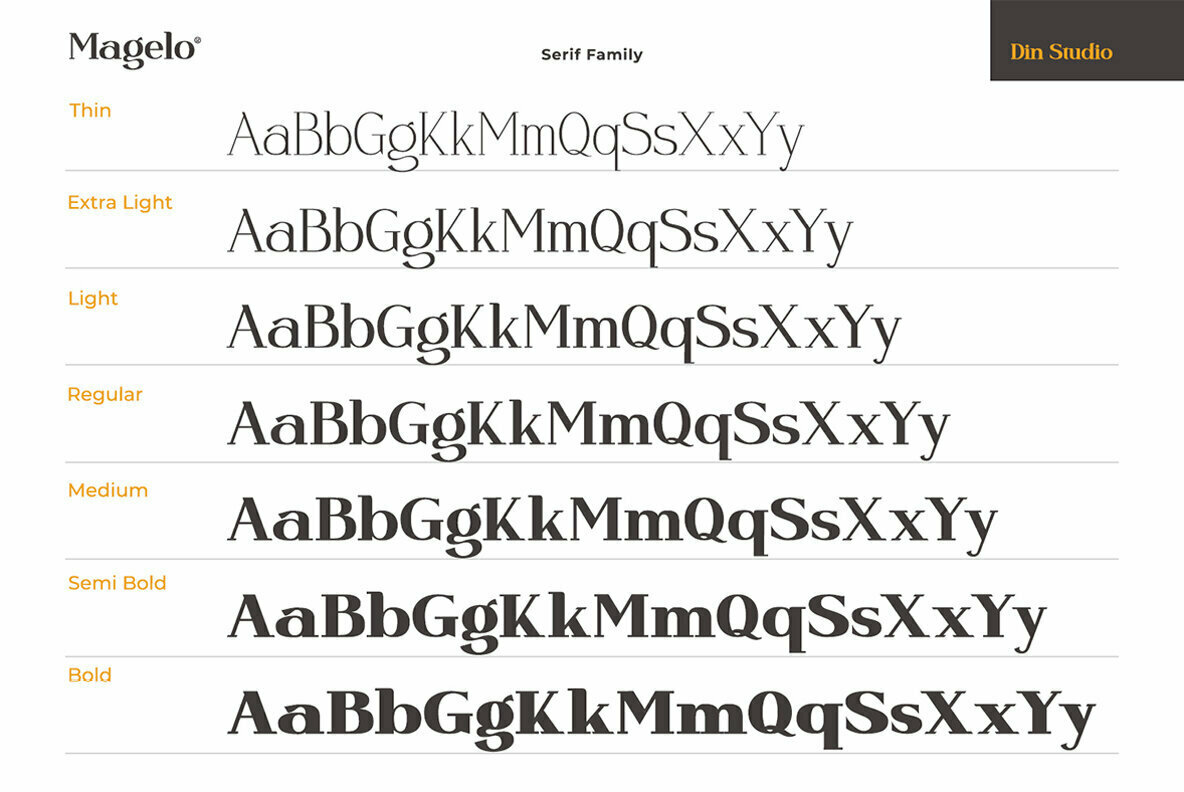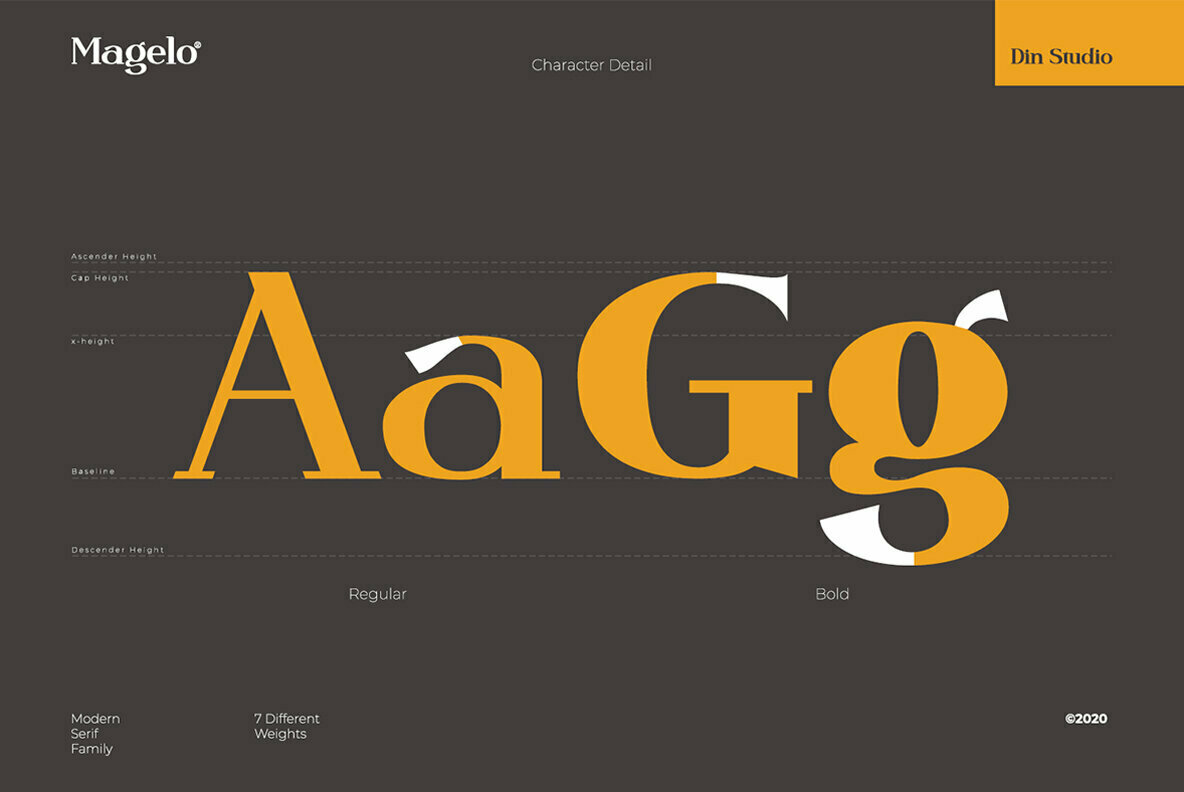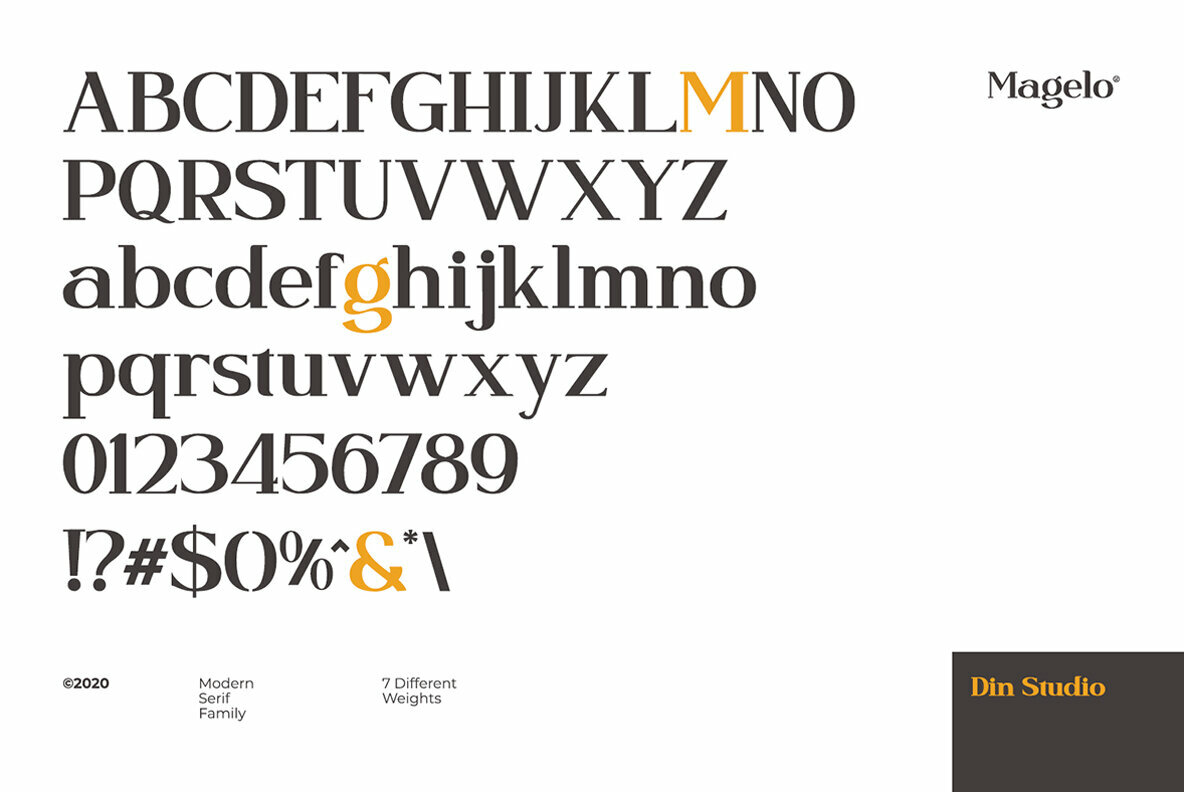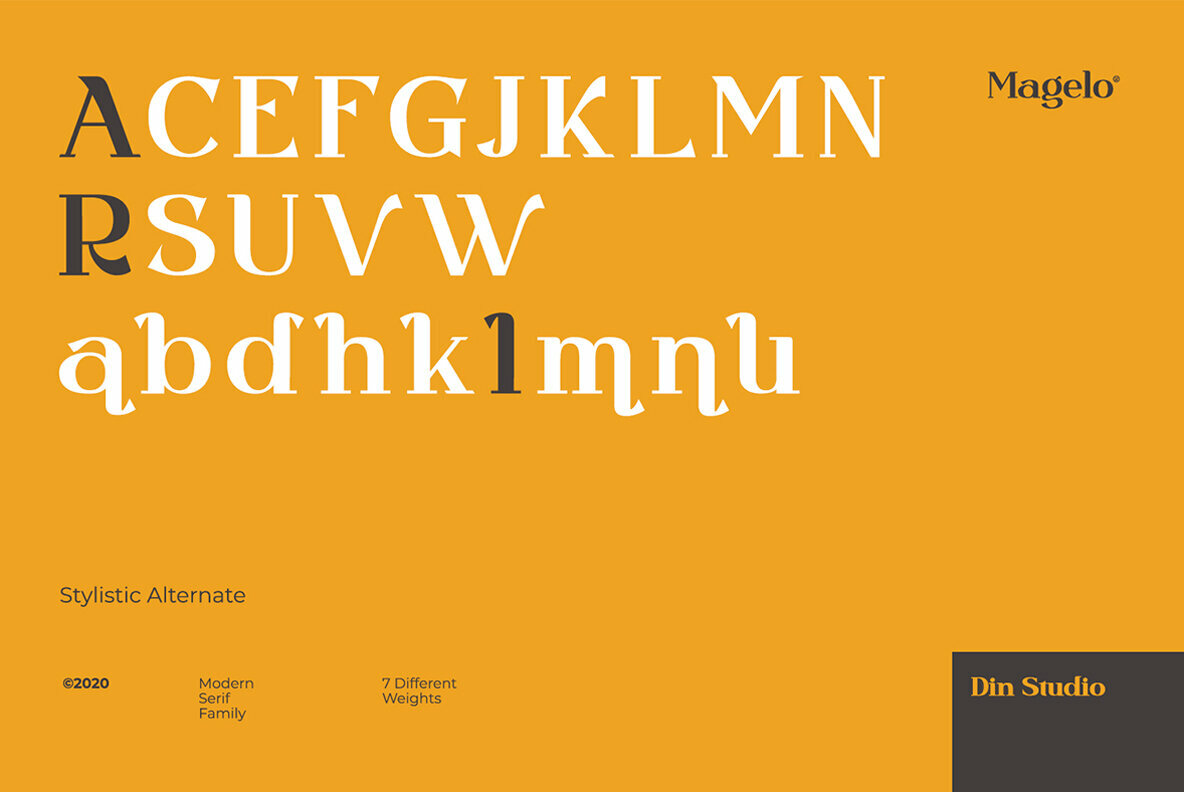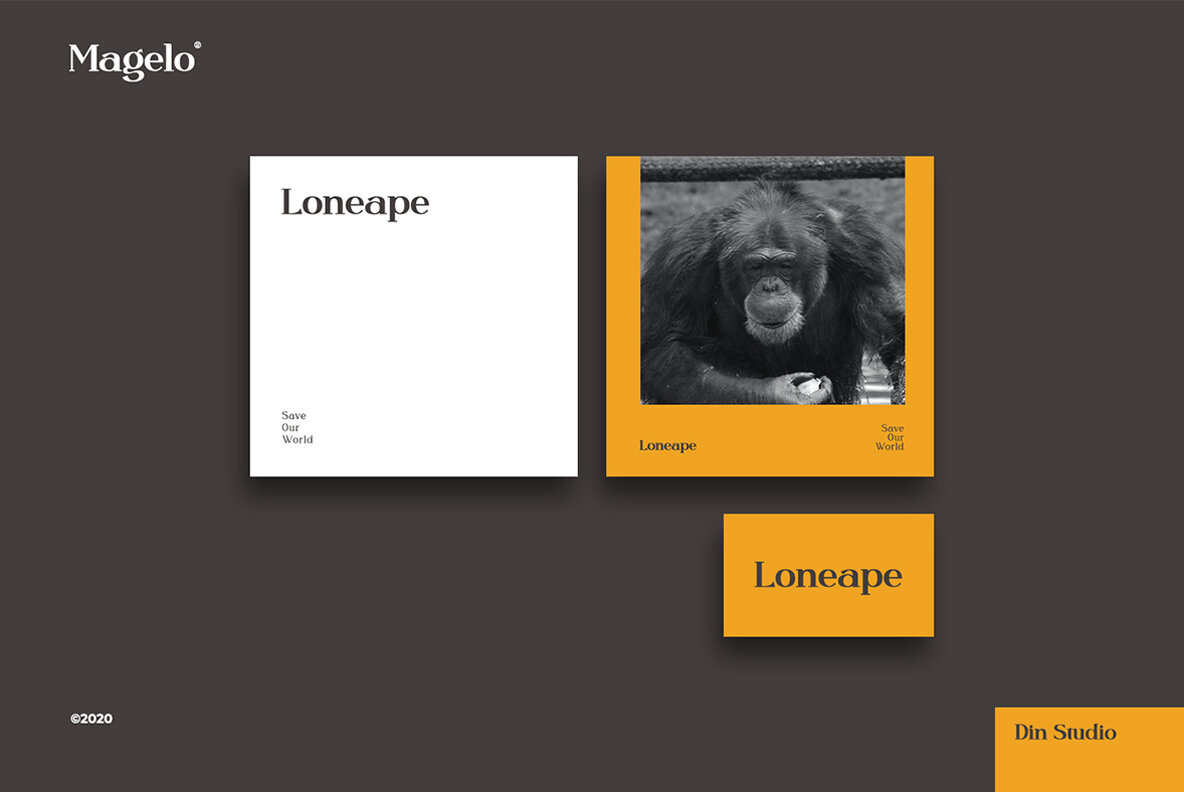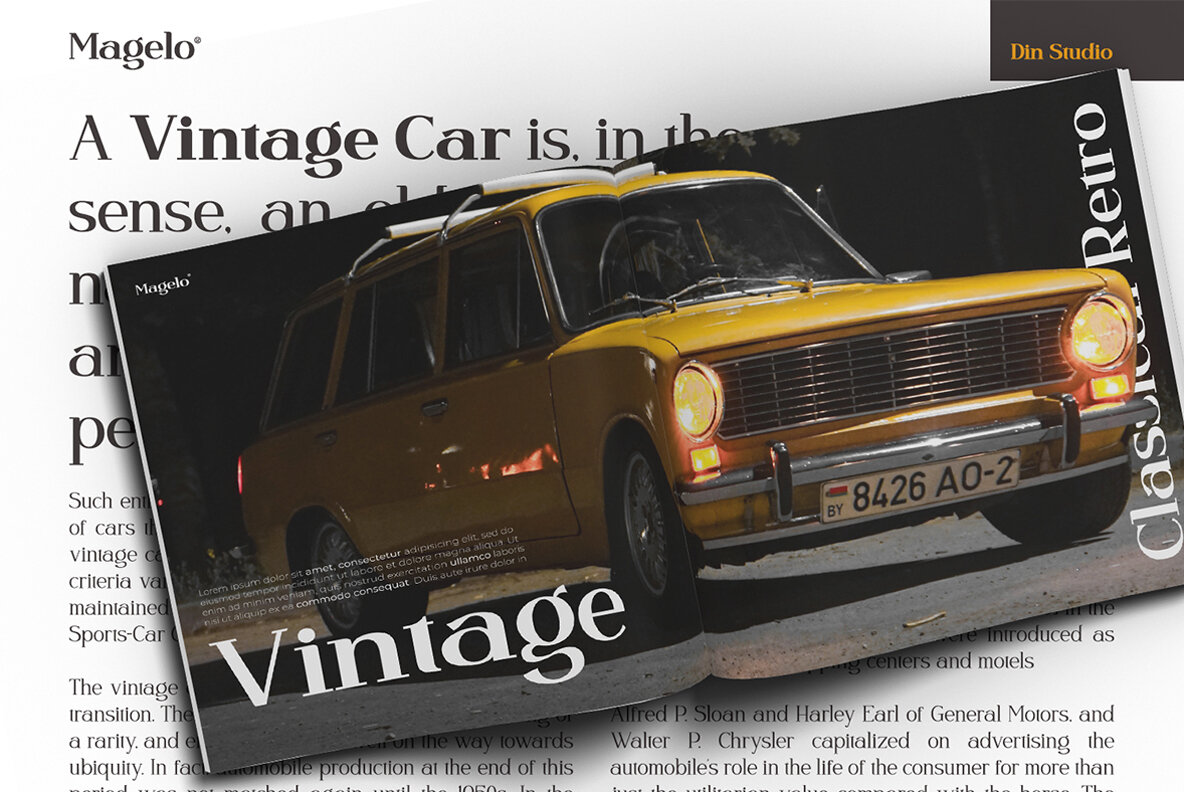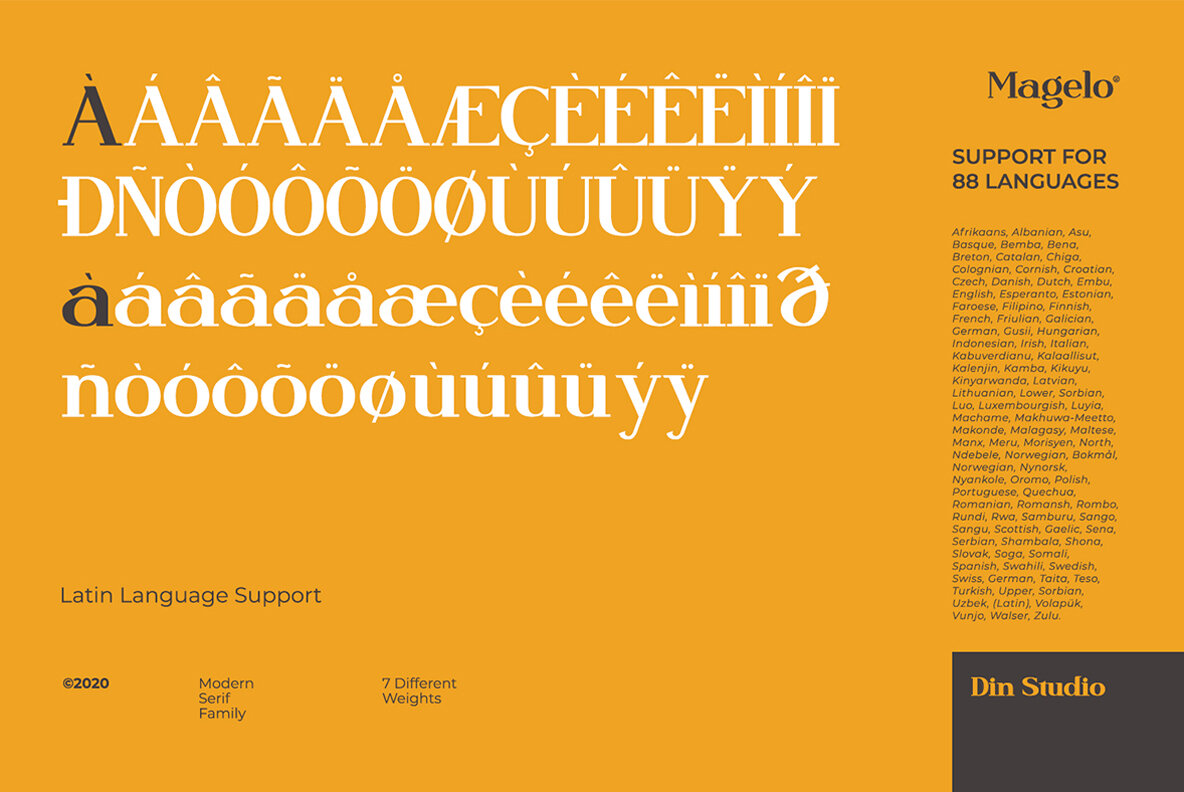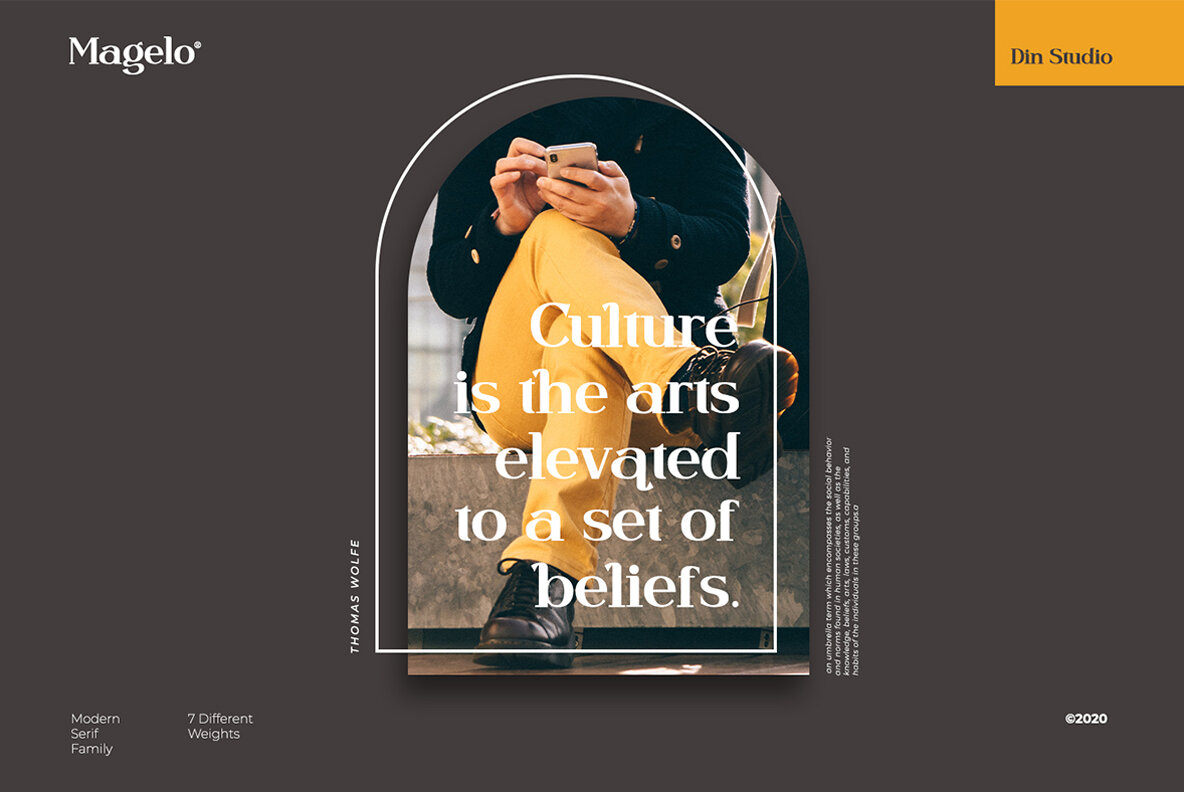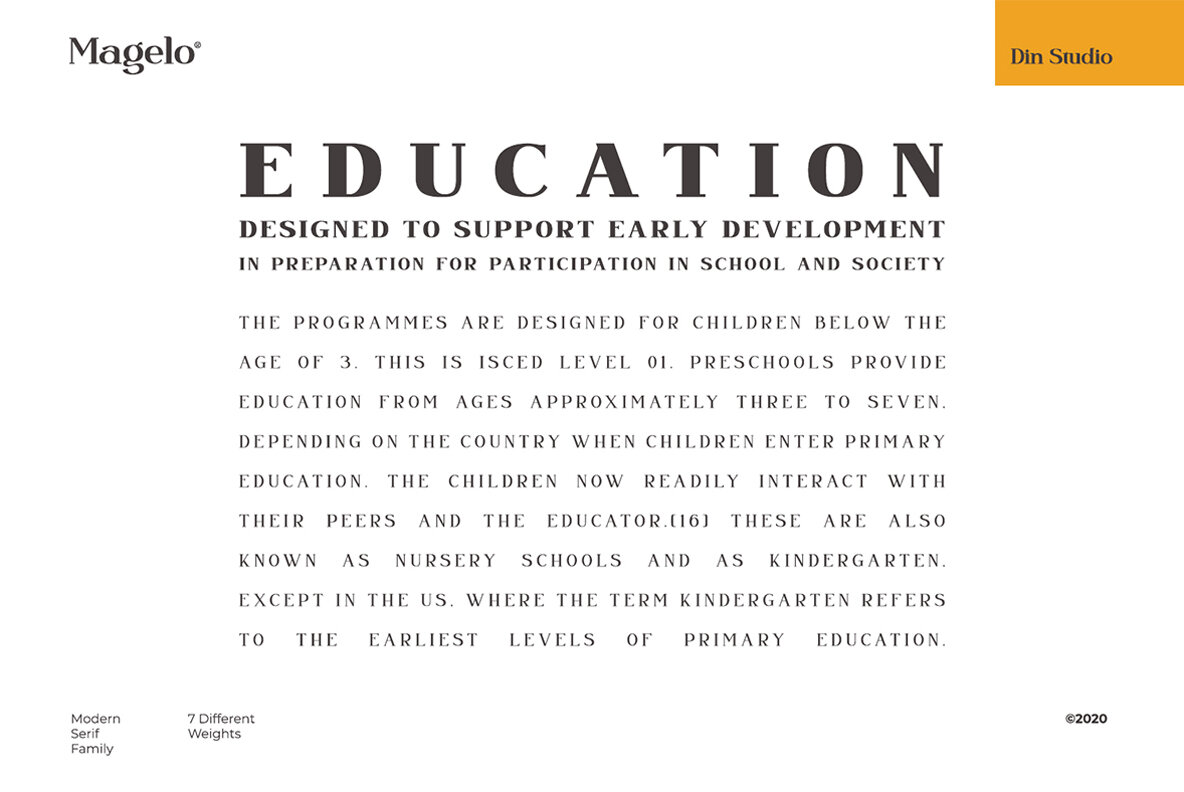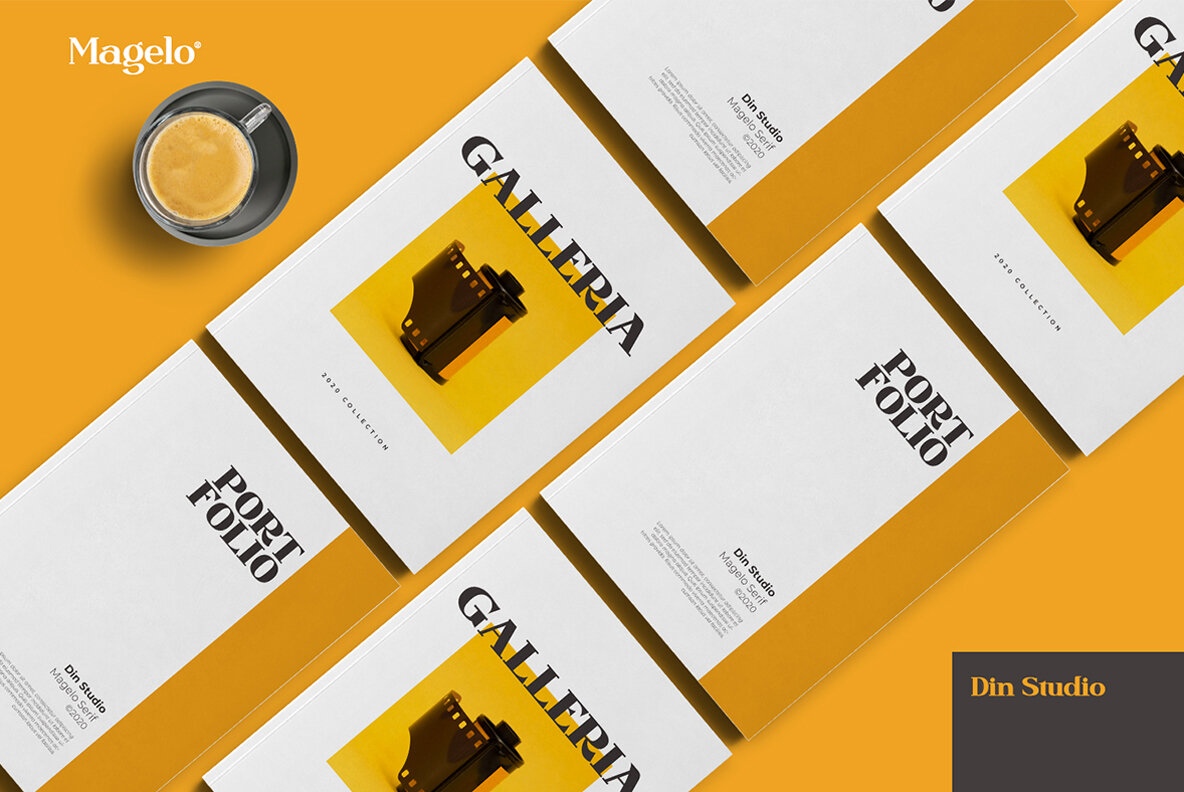
Magelo Font
Magelo Serif from Din Studio presents a modern aesthetic that seamlessly integrates into various creative endeavors. Its handcrafted charm adds a unique flair, making it suitable for anything from website design and social media branding to Pinterest banners and printed materials. Available Weights: Features:Magelo Serif: A Versatile Typeface for Creative Projects